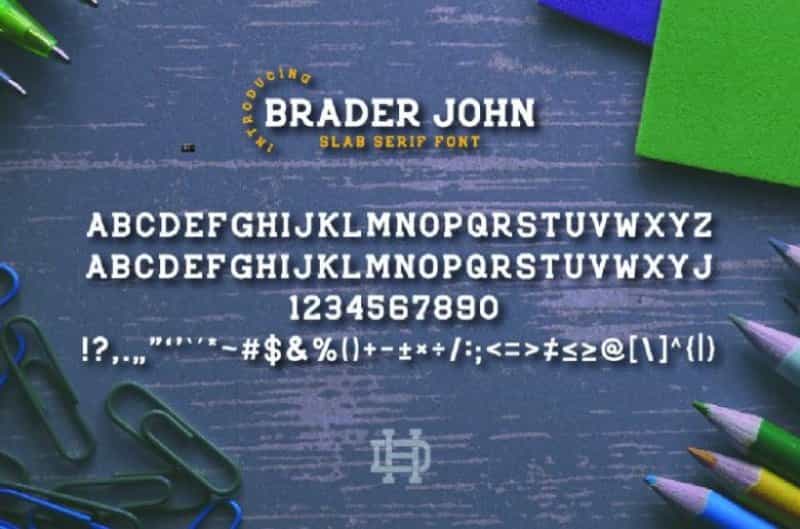
Discover Braderjohn Slab Serif Font, part of the Serif Slab Serif collection—a versatile and unique font perfect for adding a personal touch to your projects. Download it for free and enjoy crafting designs with style, from invitations to social media posts. This font is available exclusively for personal use, giving you the freedom to create without limits. Unlock your creativity with Braderjohn Slab Serif Font today!
This is a font that can be used for the creation of adventure logos, magazine headlines, horn designs, advertisements and other things.